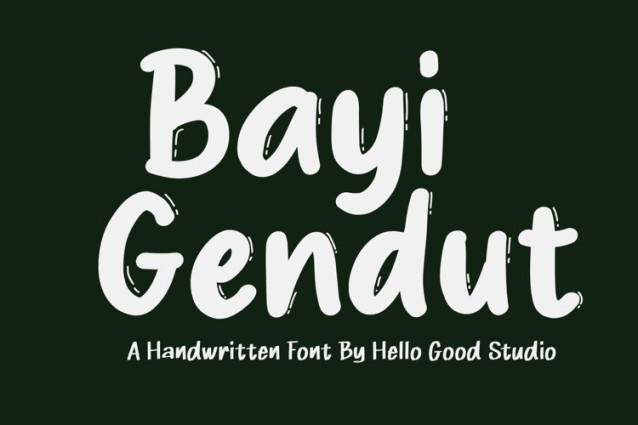
Bayi Gendut Font
Bayi Gendut Font a sweet and friendly handwritten font. Cute and fun, this font is ideal for writing wedding invitations, cards, or any other design that might need a fun touch!